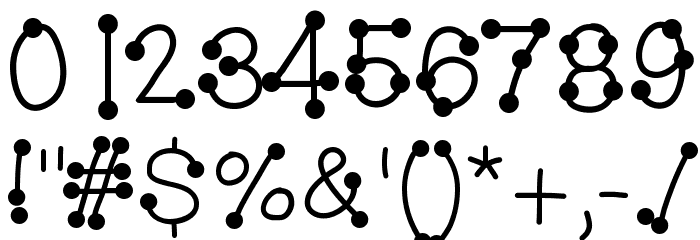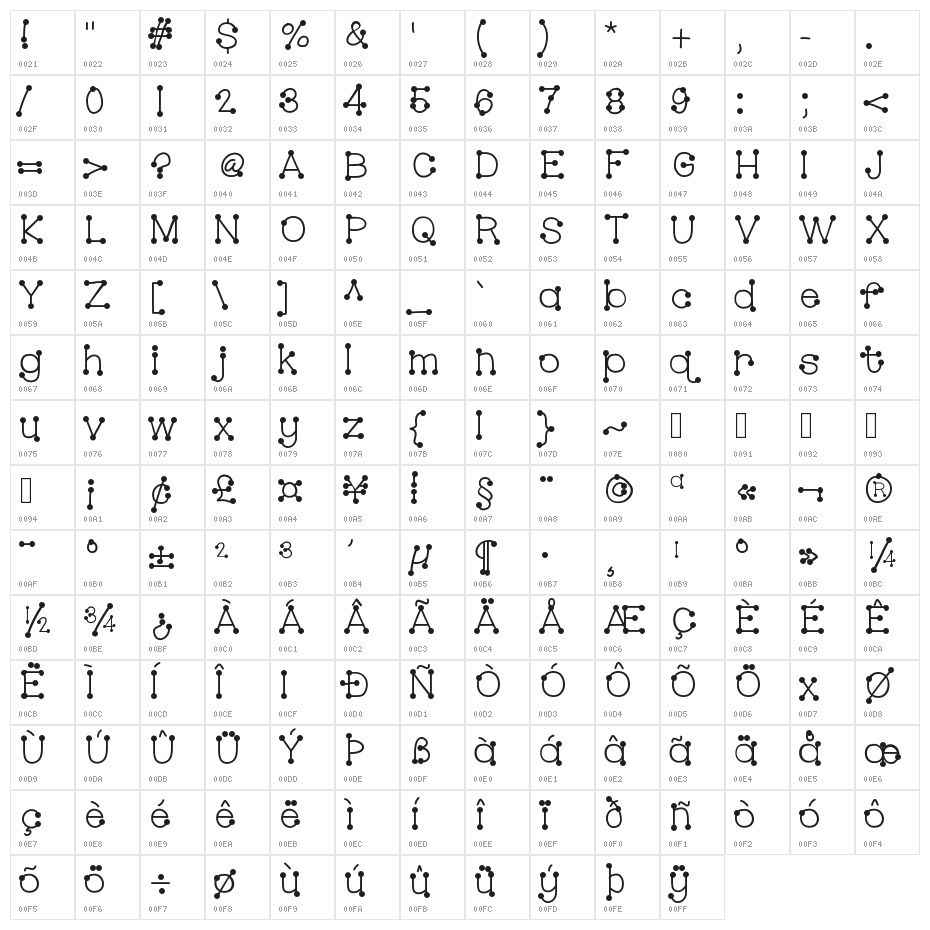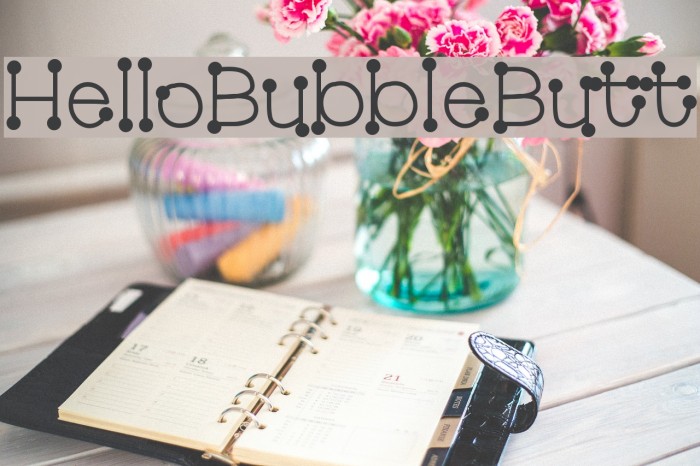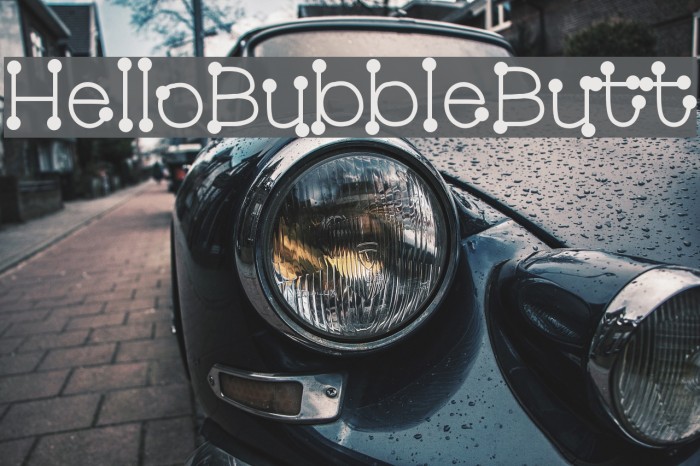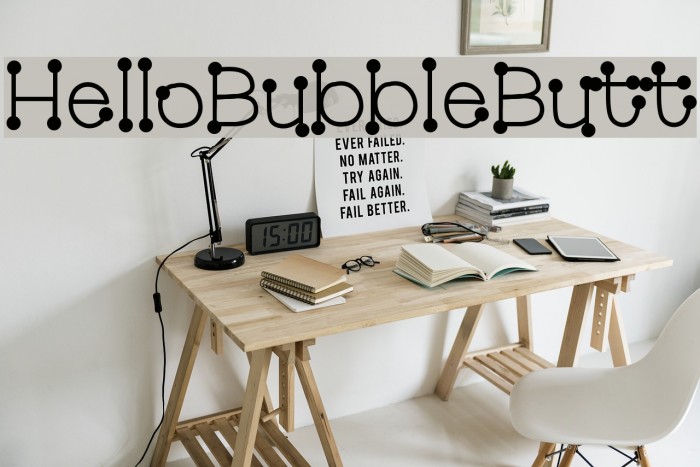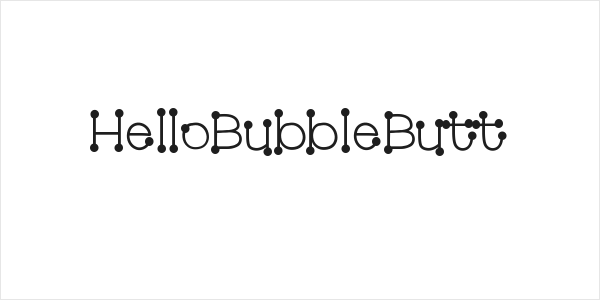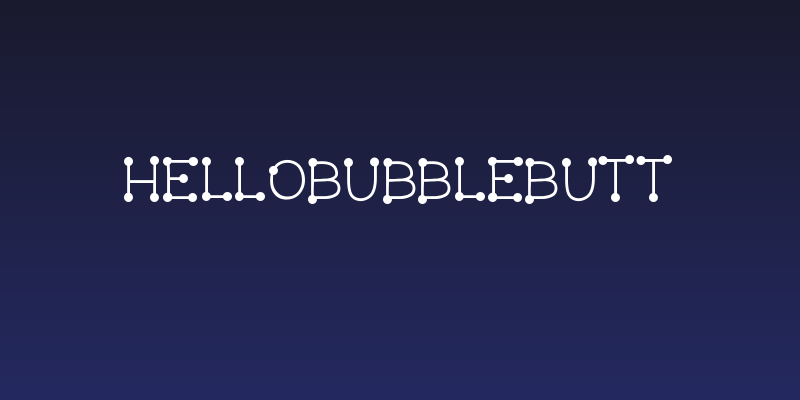
HelloBubbleButt Font
HelloBubbleButt Description
This playful and unique font features a series of dots connected by thin lines, creating a whimsical and bubbly appearance. Each character is composed of circular nodes at key points, giving it a distinctive and eye-catching style. The uppercase and lowercase letters maintain a consistent design, with rounded forms and smooth curves. Numbers and special characters follow the same dotted pattern, ensuring uniformity across the font. The overall look is both modern and fun, making it ideal for projects that require a touch of creativity and lightheartedness.